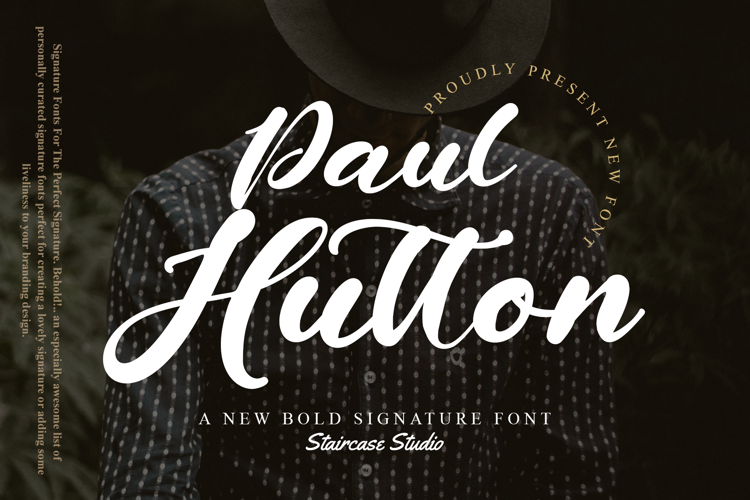
Paul Hutton Font
Paul Hutton A New Bold Signature Type Font, A collection of letters and numbers suitable your projects also great for Logotype, Branding Design, Logo Design, Digital Lettering Arts, T-Shirt/Apparel, Poster, Magazine, Signs, Advertising Design, and any design needs